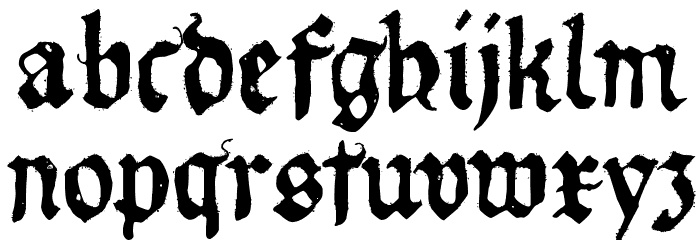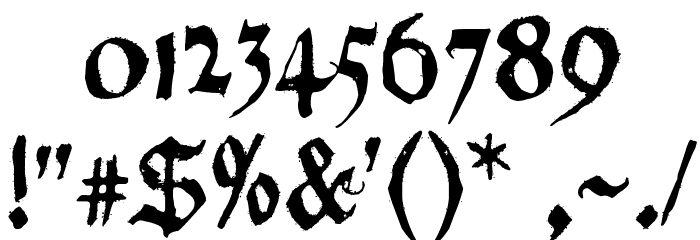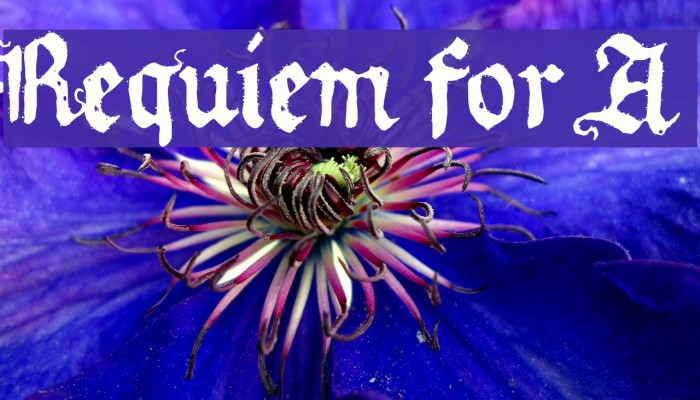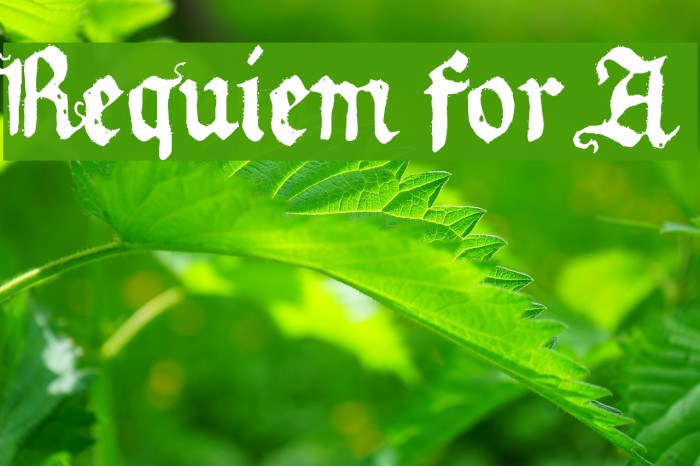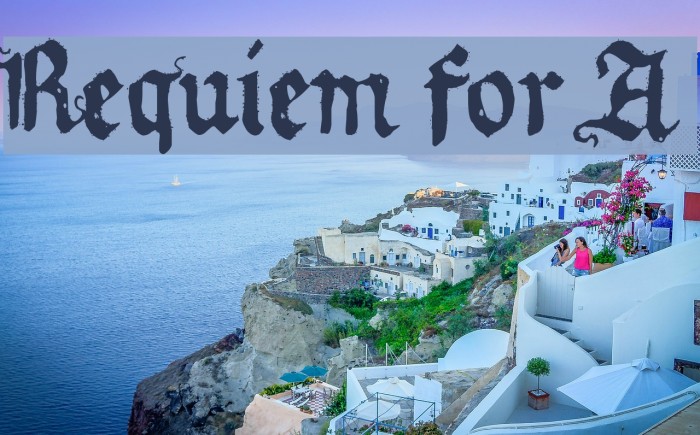
Requiem for A Font
This font embodies a classic Blackletter style, characterized by its intricate and ornate design. The letters are bold and dramatic, with sharp angles and elaborate flourishes that give it a medieval, Gothic appearance. The uppercase letters are particularly decorative, featuring additional embellishments that enhance their visual impact. The lowercase letters maintain the same level of detail, ensuring consistency throughout the typeface. Numbers and special characters are designed to match the overall aesthetic, making this font suitable for projects that require a historical or traditional feel.
A bold, ornate Blackletter font with a Gothic, medieval style.
- Proposed Projects: Ideal for historical documents, medieval-themed designs, book covers, and decorative signage.
- Overall Style: Vintage
- Use Case: Headlines, Logos, Decorative text